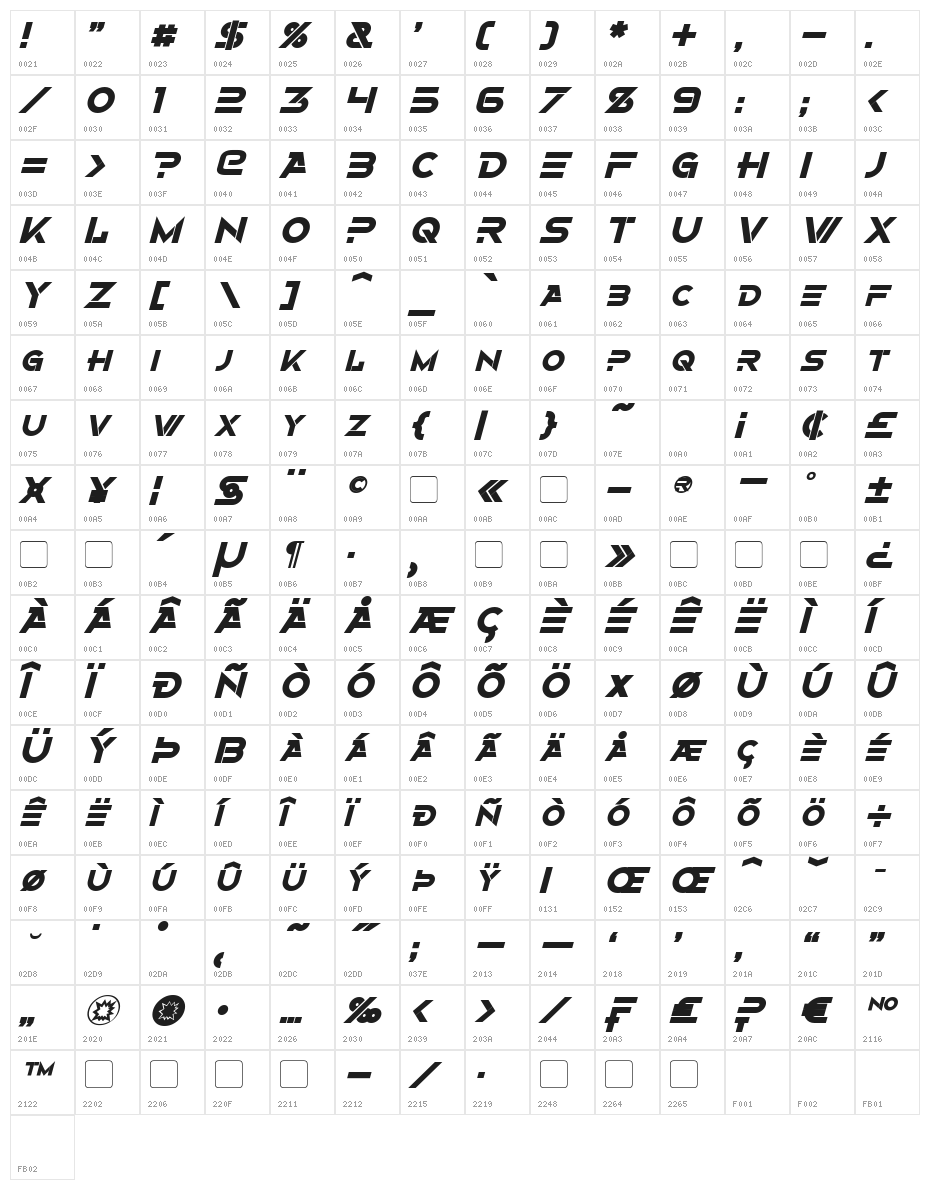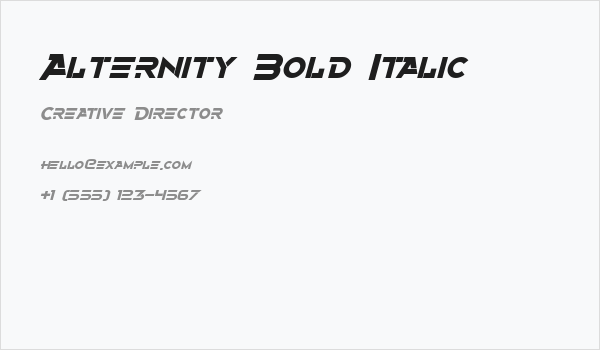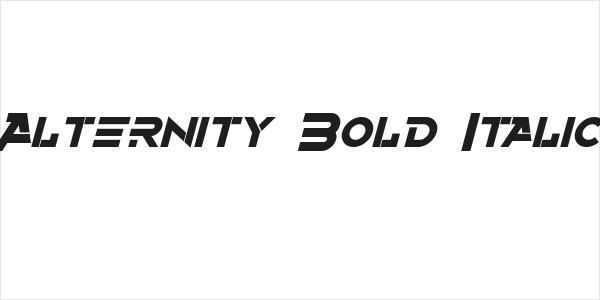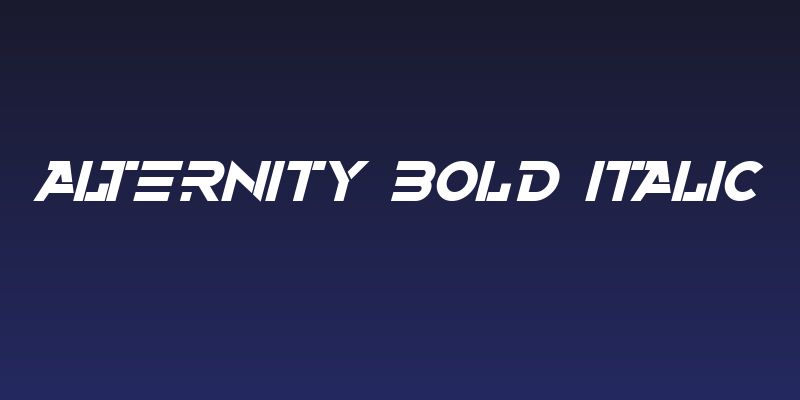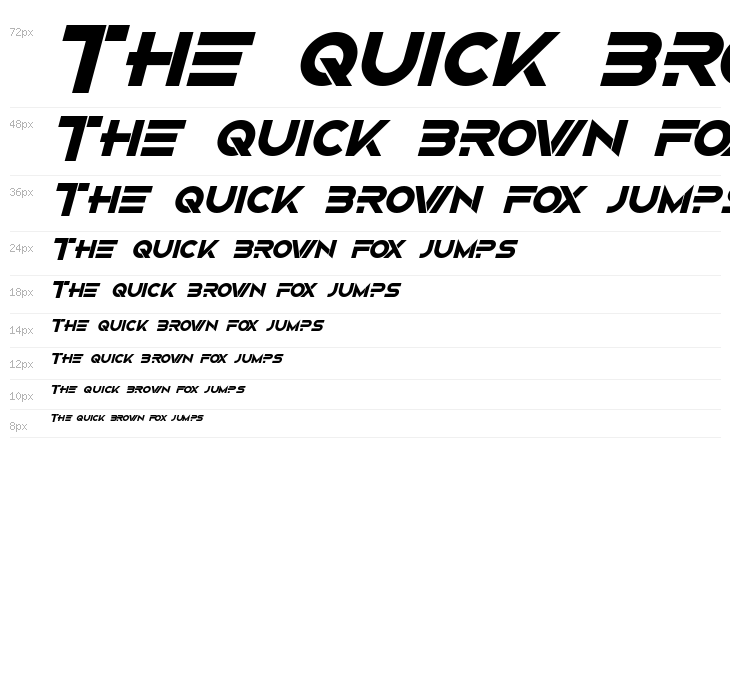
Alternity Bold Italic Font
Alternity Bold Italic Description
This font features a bold and italicized style with a futuristic and dynamic appearance. The characters are sharply angled, giving a sense of motion and speed. The uppercase letters are particularly striking, with distinct geometric cuts and a slanted orientation that enhances the italic effect. The numerals and special characters maintain this cohesive design, ensuring consistency across all glyphs. The font's bold weight and italic slant make it ideal for attention-grabbing headlines and modern design projects.
Proposed ProjectsIdeal for sci-fi themed designs, technology branding, video game titles, and dynamic posters.